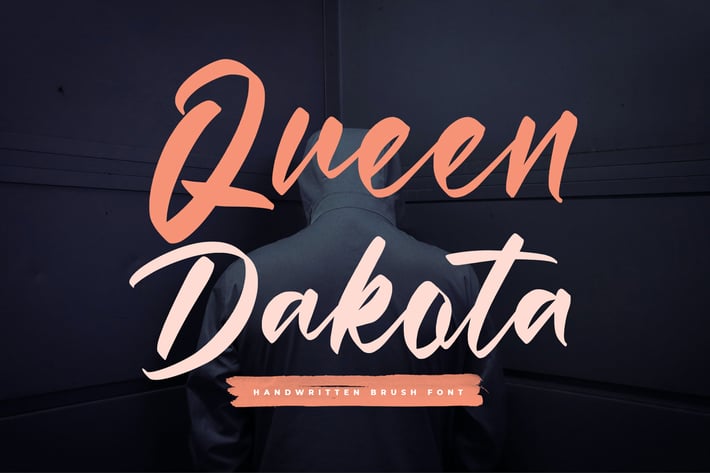
Queen Dakota Handwritten Font
Introducing the Queen Dakota Handwritten Font! For those of you who are needing a touch of elegance and modernity for your designs, this font was created for you!
Queen Dakota Handwritten font is suitable for all your design project needs such as: logo design, branding, covers, posters, magazines, wedding invitations, greeting cards, quotes and more.
Queen Dakota Handwritten font was built with OpenType features and includes beginning and ending swashes, alternate swash characters for most lowercase letters, numbers, punctuation, and it also supports other languages :)